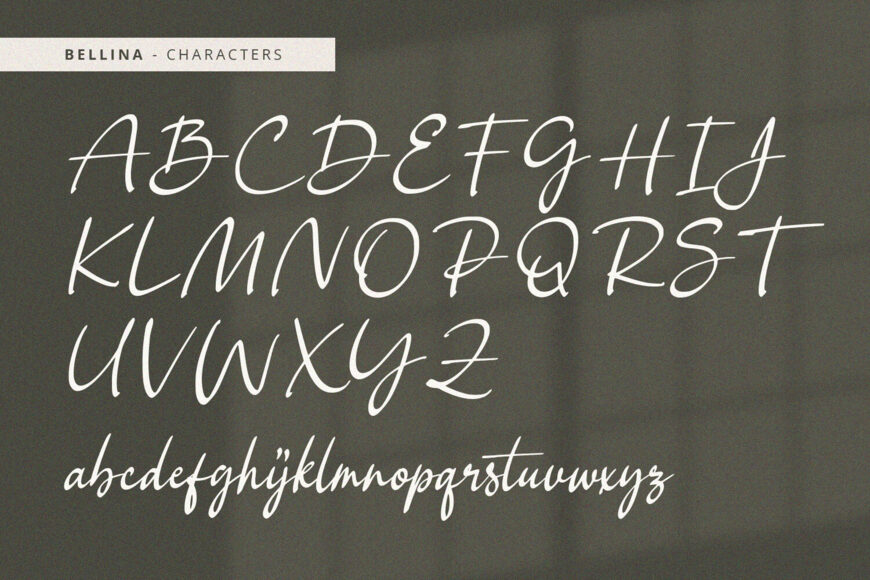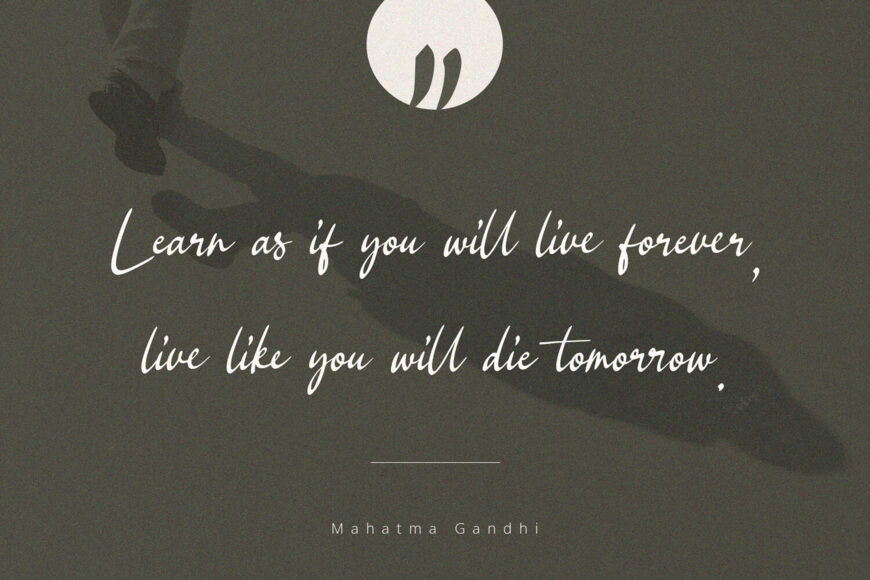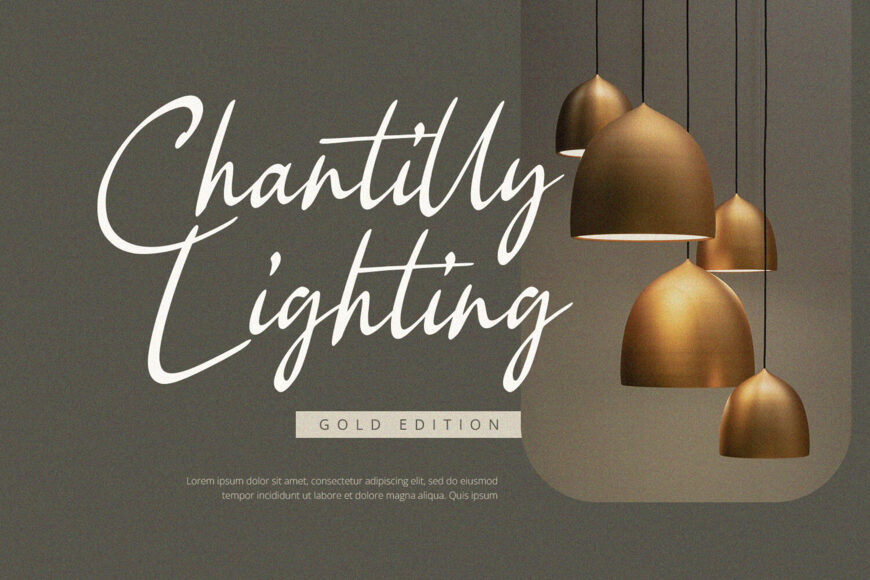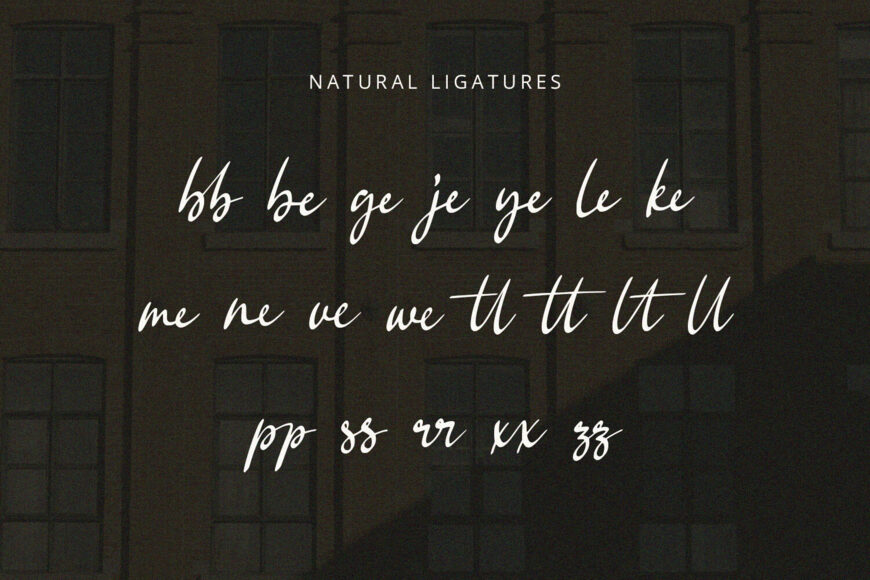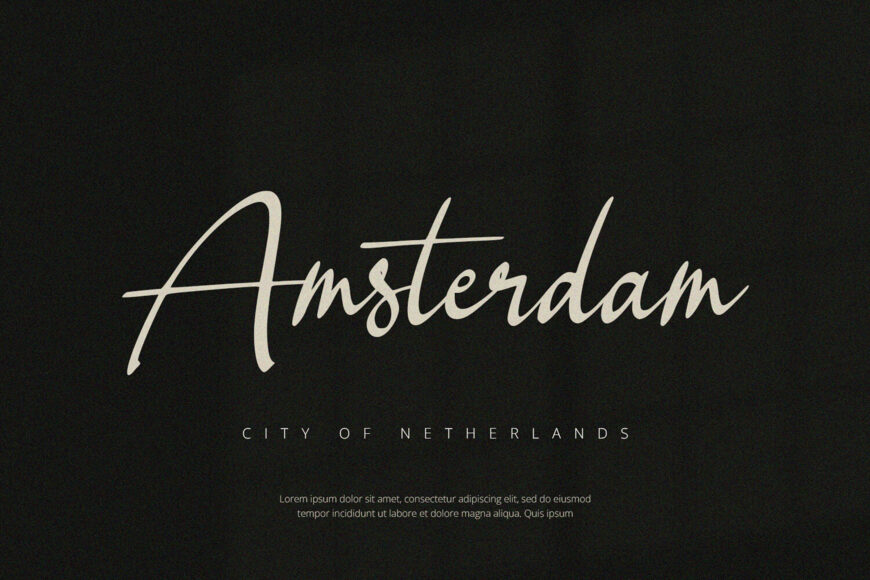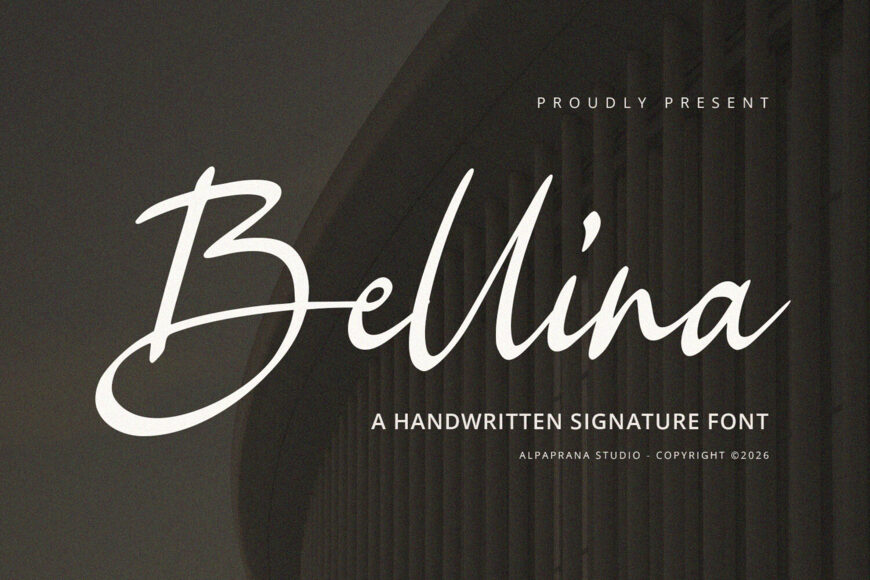
Bellina is a beautiful, elegant handwritten font with a unique, modern feel. It’s ideal for branding, logo design, lettering, logotypes, clothing, posters, magazines, packaging, shopping bags, T-shirts, book covers, photography, special events, and many other creative projects.